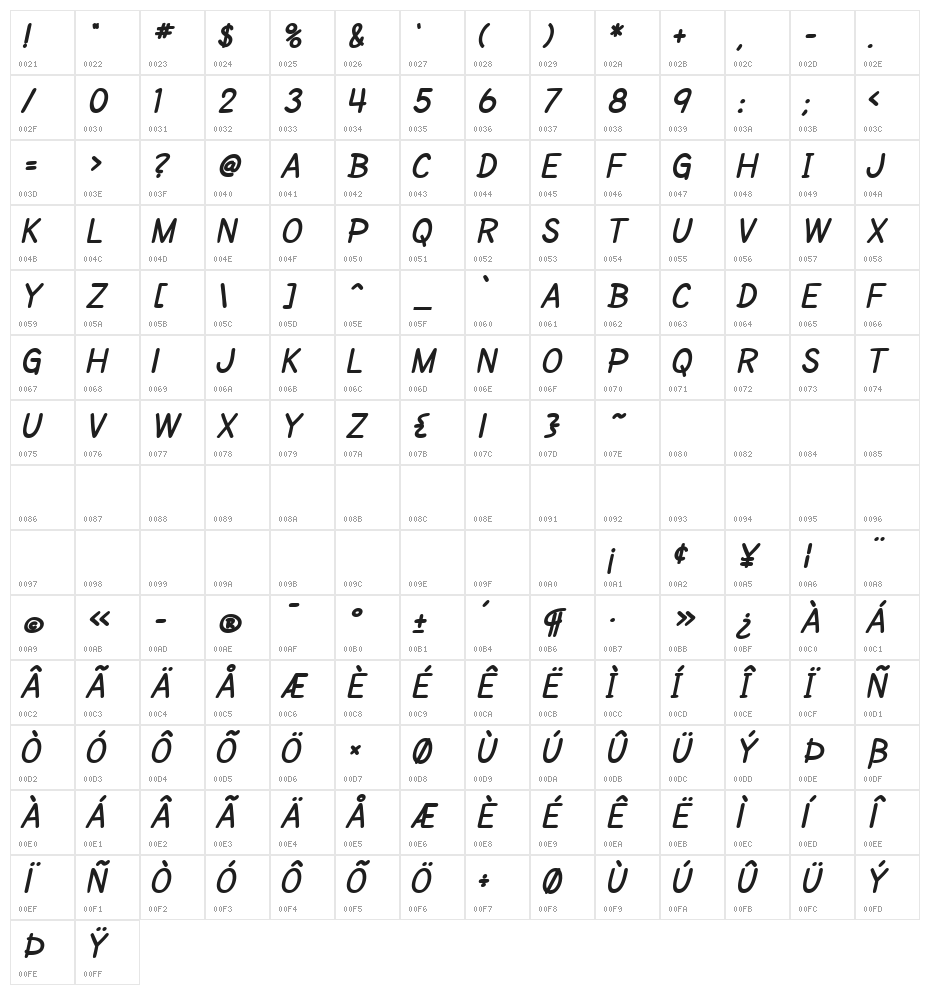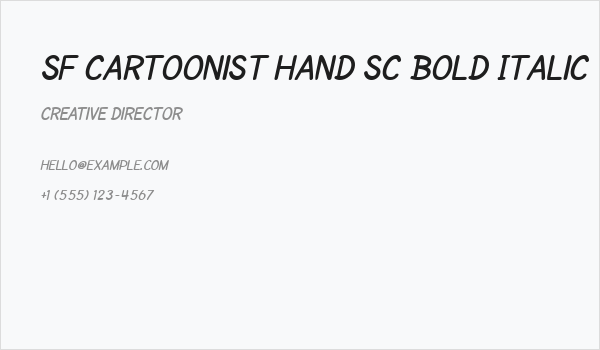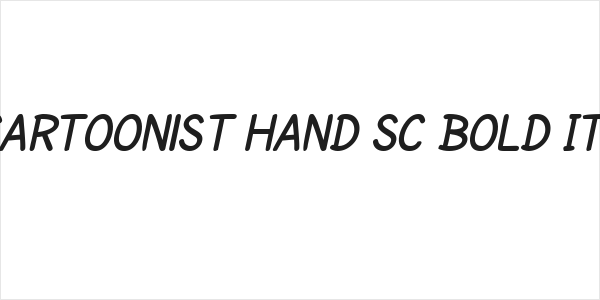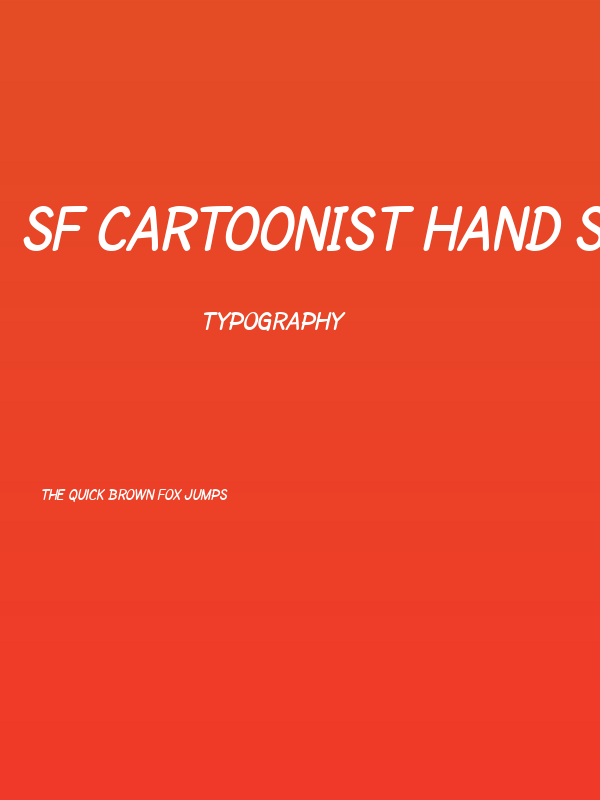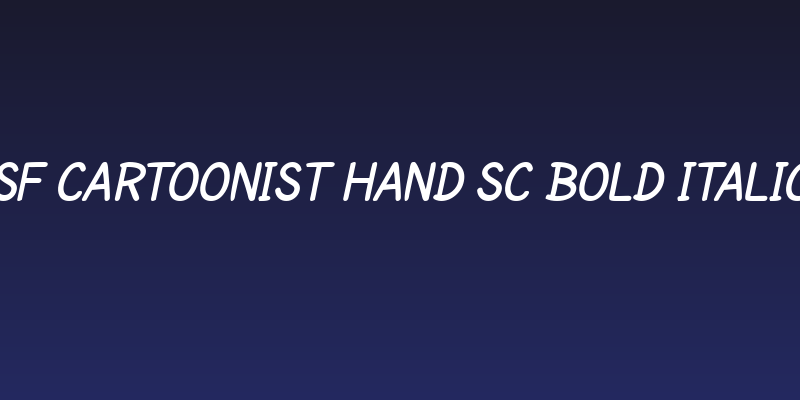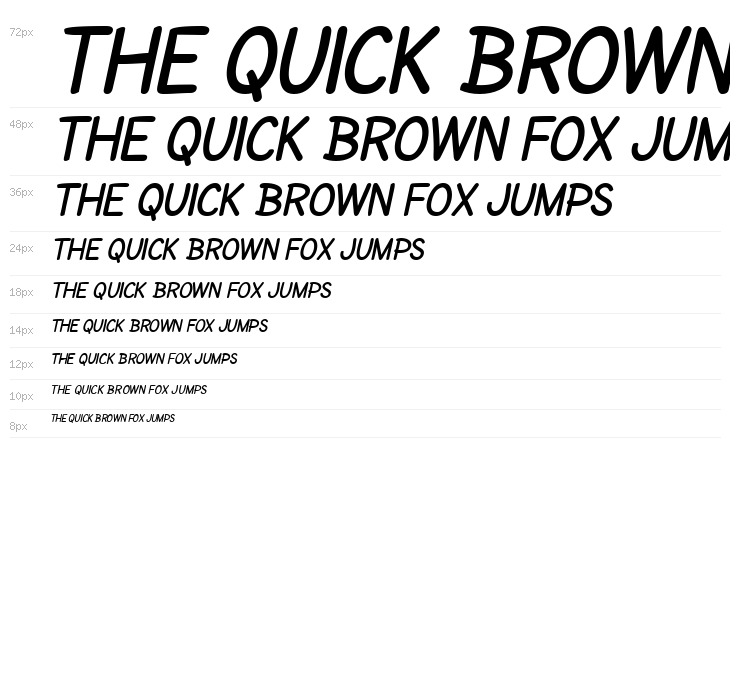
SF Cartoonist Hand SC Bold Italic Font
SF Cartoonist Hand SC Bold Italic Description
This playful and energetic font features a hand-drawn style with a bold and italicized appearance. The characters are slightly slanted, giving a dynamic and lively feel. Each letter is crafted with smooth, rounded edges, enhancing its approachable and friendly look. The font maintains a consistent thickness throughout, ensuring readability while adding a touch of whimsy. The numbers and special characters follow the same design principles, making them cohesive with the alphabet. This font is perfect for projects that require a fun and informal touch.
| Proposed Projects | Ideal for comic books, children's books, playful branding, greeting cards, and casual invitations. |